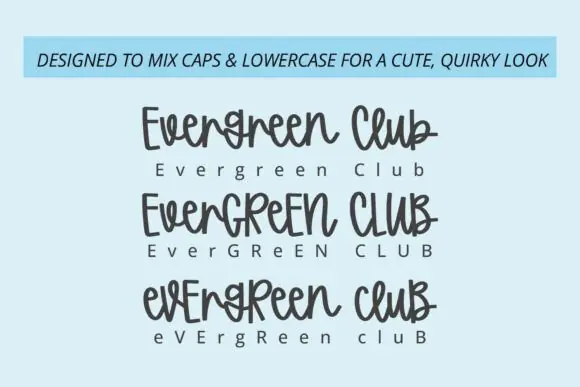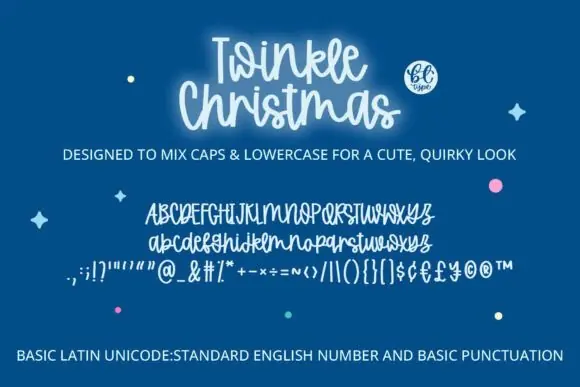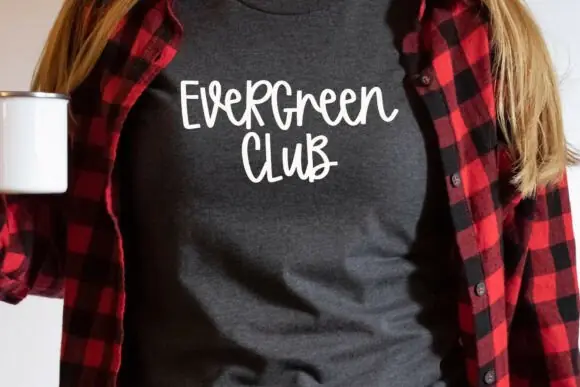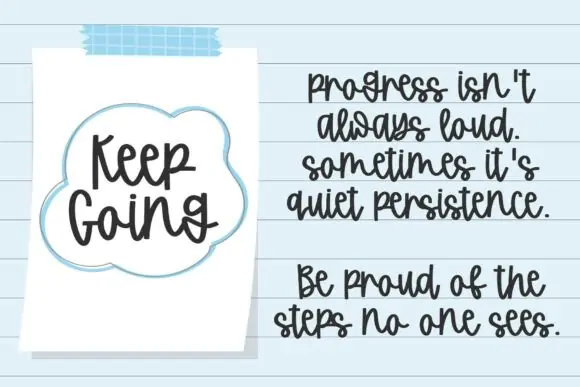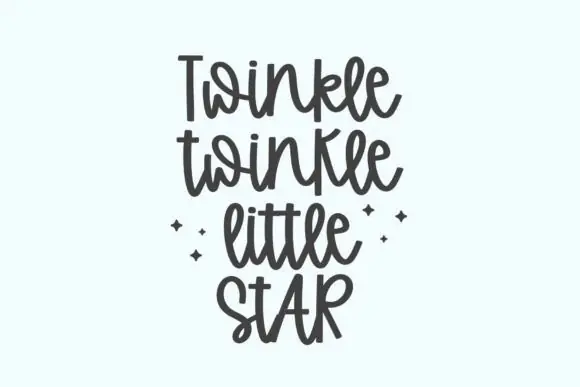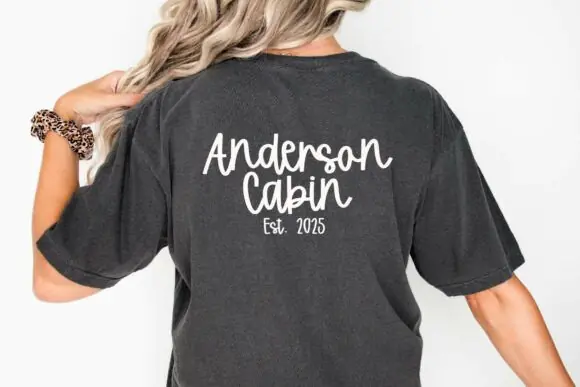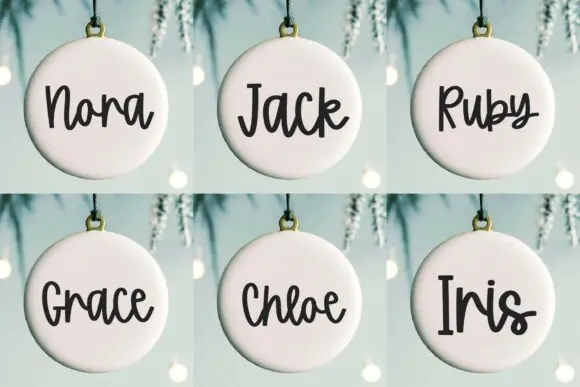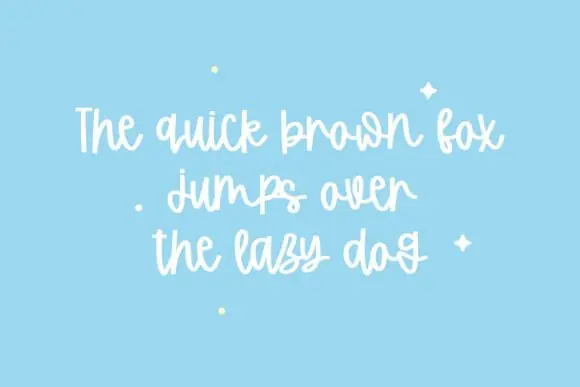
Twinkle Christmas Font | Bouncy Quirky Holiday Script Font for Christmas Cards, Gift Tags, Packaging, Tumblers, Stickers, SVG & Cricut Projects
Create cheerful, magical, and cozy holiday designs with Twinkle Christmas Font, a bouncy and quirky handwritten script font made to capture the joyful sparkle of the Christmas season. This font blends playful movement with clear readability, allowing you to mix uppercase and lowercase letters for a fun, hand-lettered look without losing clarity.
Twinkle Christmas Font features delicate flowing letterforms, slightly irregular bounce, and energetic strokes that feel inspired by sparkling lights, tinsel, and festive holiday decorations. Its connected script style gives your designs a warm, personal, and handmade appearance, making it perfect for both digital and physical Christmas projects.
This font works beautifully for Christmas cards, holiday invitations, handmade gift tags, festive product packaging, social media announcements, tumblers, farmhouse welcome signs, planner pages, stickers, SVG designs, mugs, t-shirts, tote bags, printable wall art, and seasonal branding.
Its lively strokes remain readable for print and cutting machine projects, making it useful for Cricut, Silhouette, and Glowforge users who want to create festive craft designs with a cozy handwritten feel.
• Bouncy, quirky, and readable script style
• Mixes uppercase and lowercase beautifully
• Delicate handwritten Christmas feel
• Inspired by sparkling lights and festive tinsel
• Great for cards, tags, packaging, and SVG projects
• Suitable for Cricut, Silhouette, and Glowforge
• Adds warm, joyful holiday charm to your designs
Twinkle Christmas Font is a beautiful choice for crafters, small business owners, designers, and digital product sellers who want to create charming Christmas designs with a playful, sparkling, and hand-lettered holiday look.